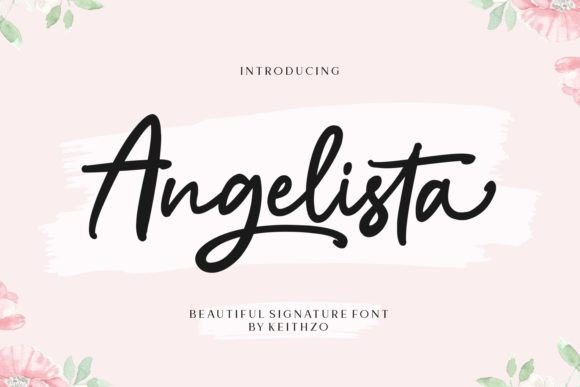
Introducing Angelista Font: Elevate Your Designs with Elegance
In the world of typography, a font can make all the difference in the aesthetic and effectiveness of a design. For those seeking a touch of elegance and sophistication, Angelista Font emerges as a dazzling script font that can transform any creative project. Crafted with meticulous attention to detail, Angelista is not just a font; it’s an asset that can elevate your designs to new heights.
What Makes Angelista Font Stand Out?
Angelista Font is neatly crafted and highly detailed, showcasing a level of sophistication that is hard to find in many script fonts available today. Its intricate design and beautiful flow make it perfect for a wide range of projects, from wedding invitations and branding materials to digital content and more. The versatility of Angelista lies in its ability to complement any topic or theme, ensuring that your designs always look polished and refined.
Applications of Angelista Font
The applications of Angelista Font are vast and varied. Designers and crafters can use it in:
- Wedding and Event Planning: Create stunning invitations, save-the-date cards, and event programs that set the tone for a memorable occasion.
- Branding and Marketing: Use Angelista Font in logos, brochures, and digital marketing materials to add a touch of elegance and sophistication to your brand’s image.
- Digital Content: Enhance your blog posts, social media graphics, and website content with a font that captures attention and conveys a sense of luxury.
- Stationery and Packaging: Elevate your business cards, letterheads, and product packaging with a distinctive and stylish font.
Why Choose Angelista Font?
Choosing Angelista Font for your design projects comes with numerous benefits:
- Unique and Memorable: Stand out from the crowd with a font that is both unique and memorable.
- Versatile: Suitable for a wide range of projects and themes.
- High-Quality: Neatly crafted and highly detailed, ensuring professional results.
Angelista Font is more than just a script font; it’s a tool that can transform your designs, adding a level of elegance and sophistication that is sure to impress. Whether you’re a professional designer or a crafter looking to add a personal touch to your projects, Angelista Font is an excellent choice. With its PUA encoding, detailed craftsmanship, and versatile application, it’s an asset that can enhance any creation. Make the most of your designs with Angelista Font and discover the difference it can make.